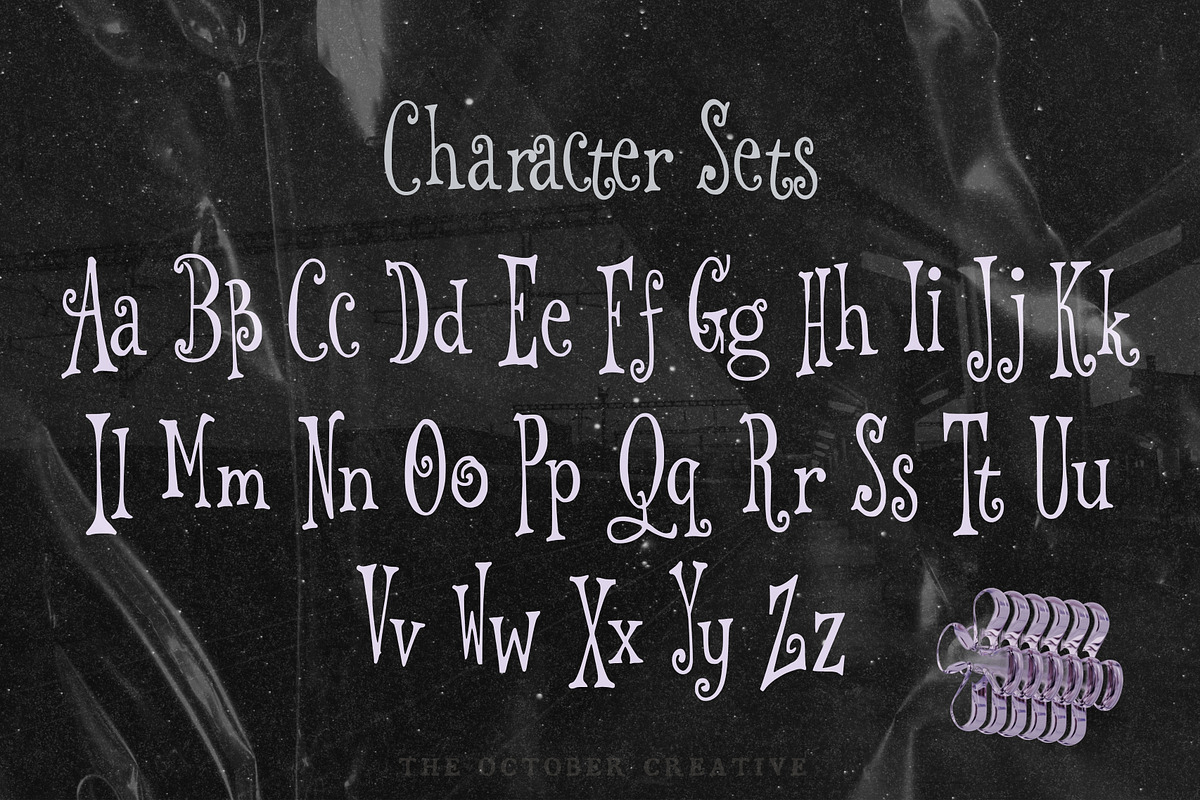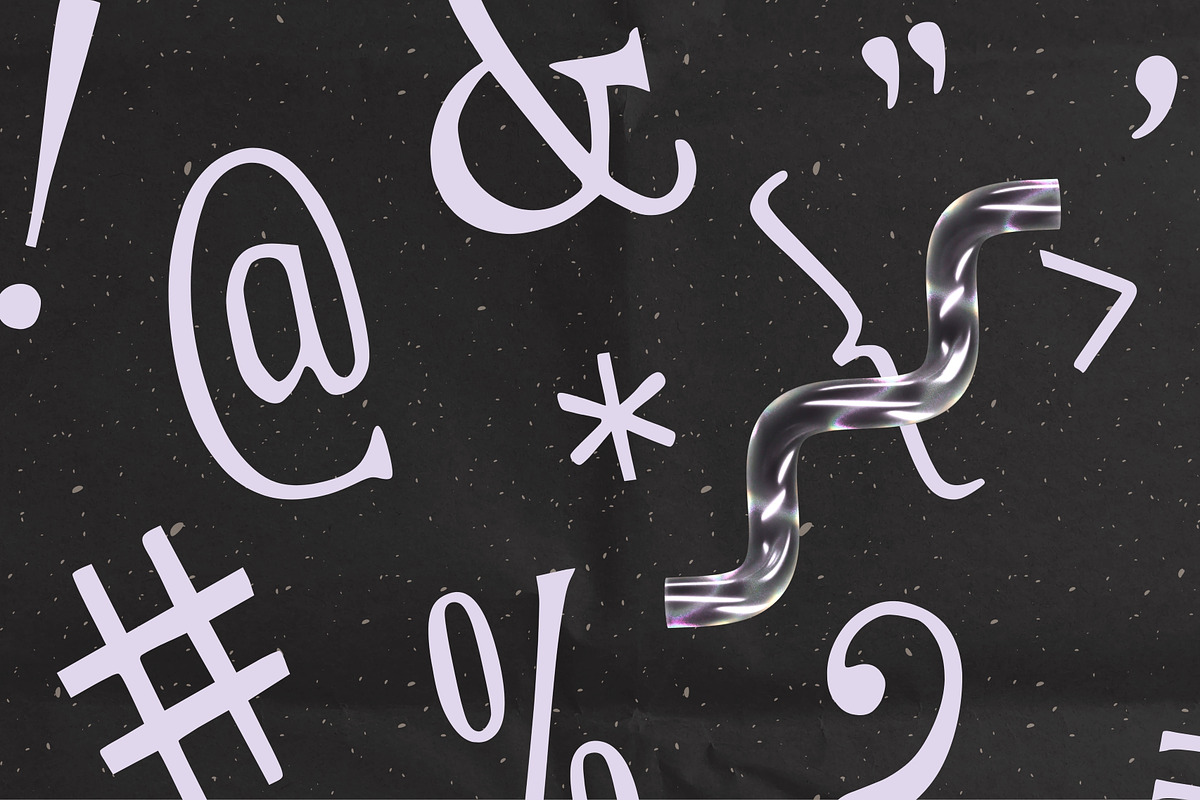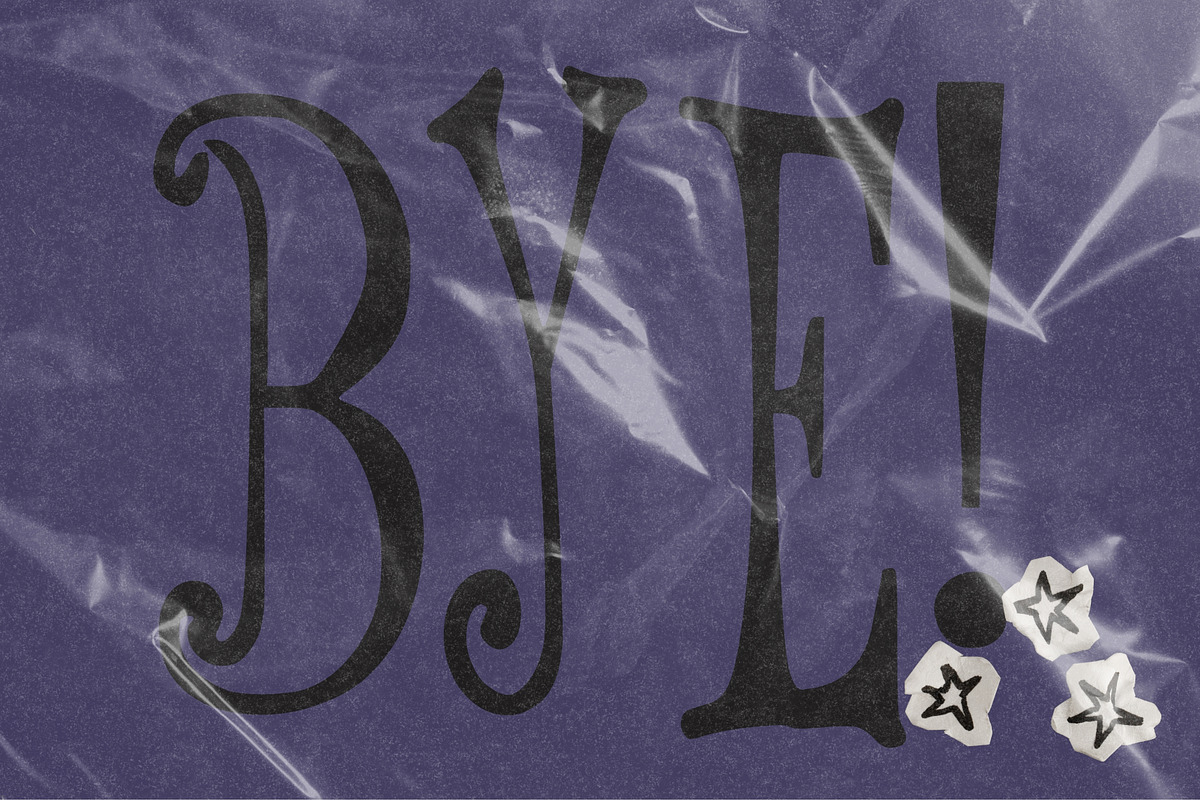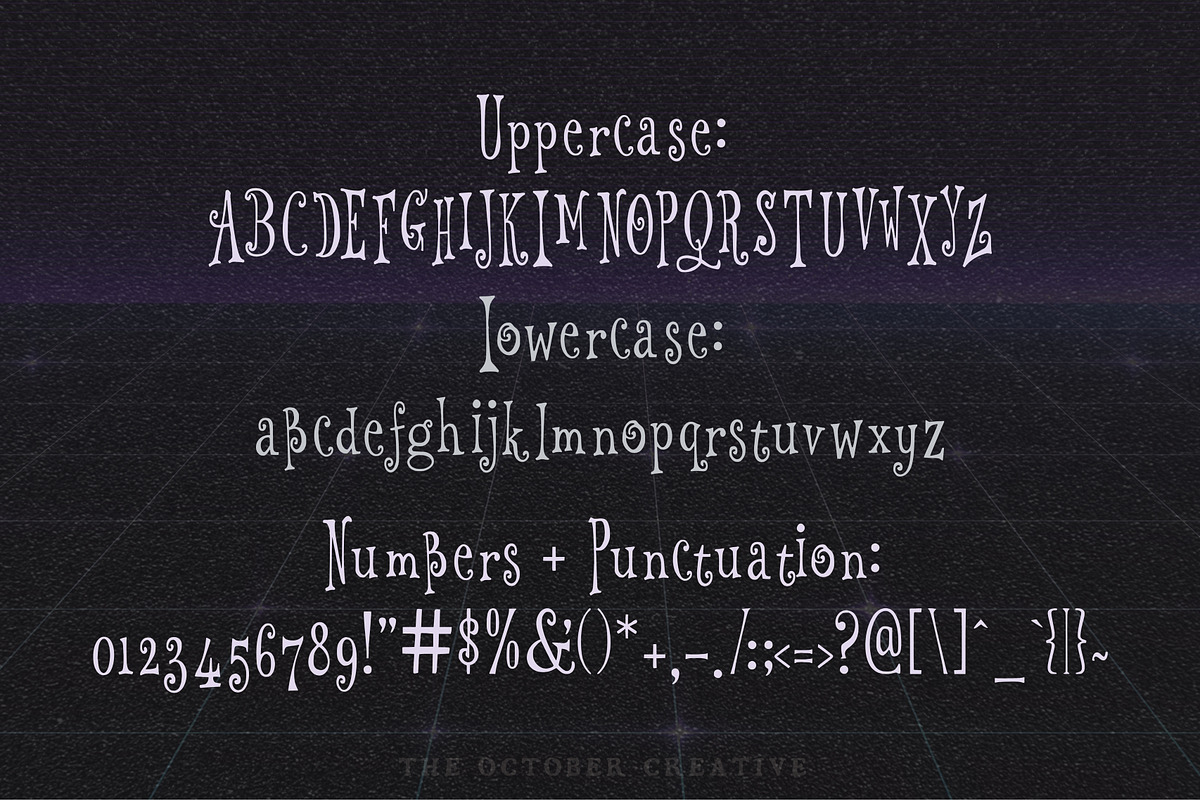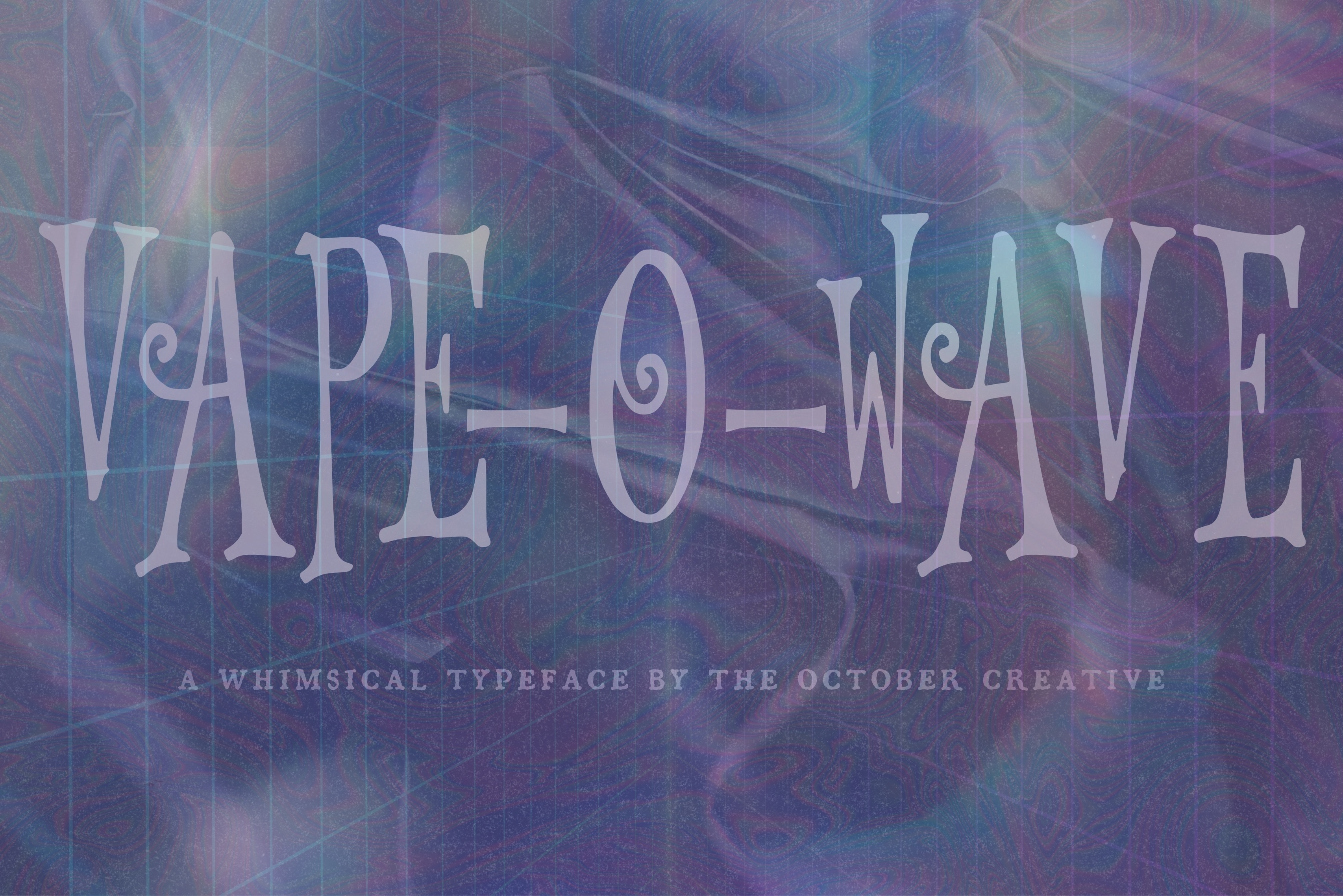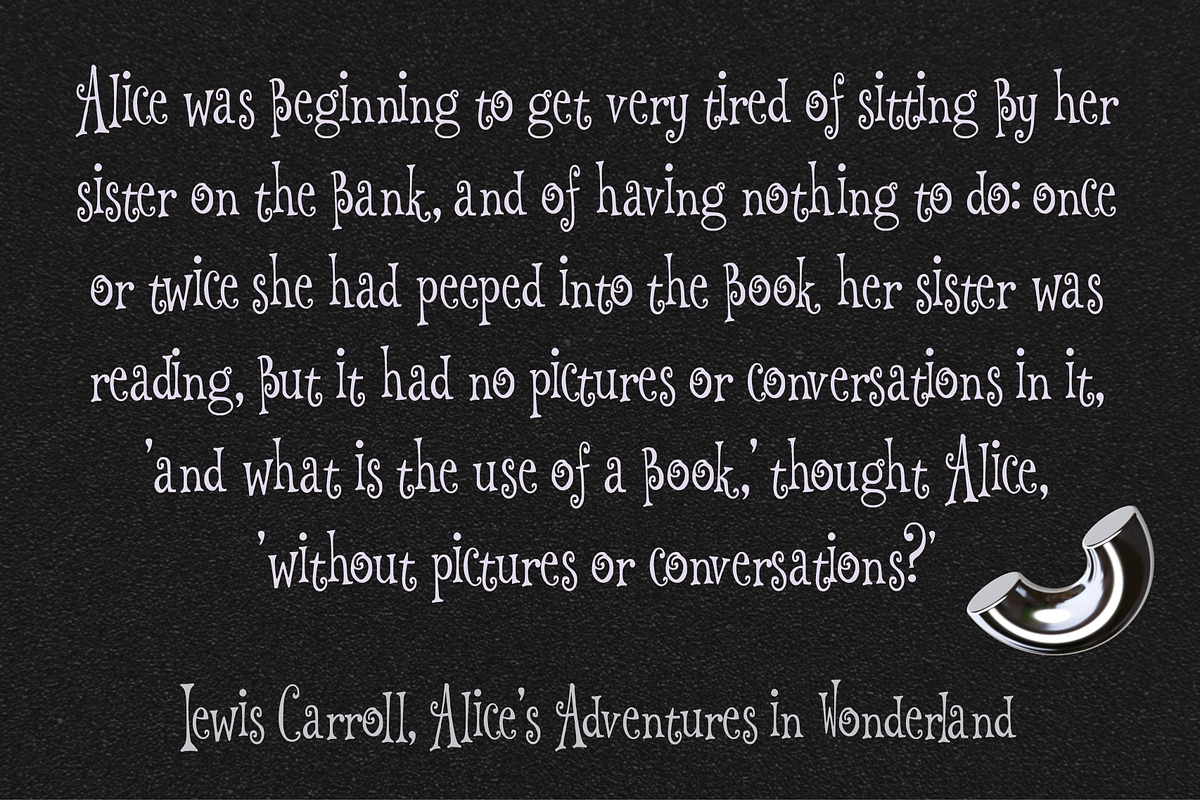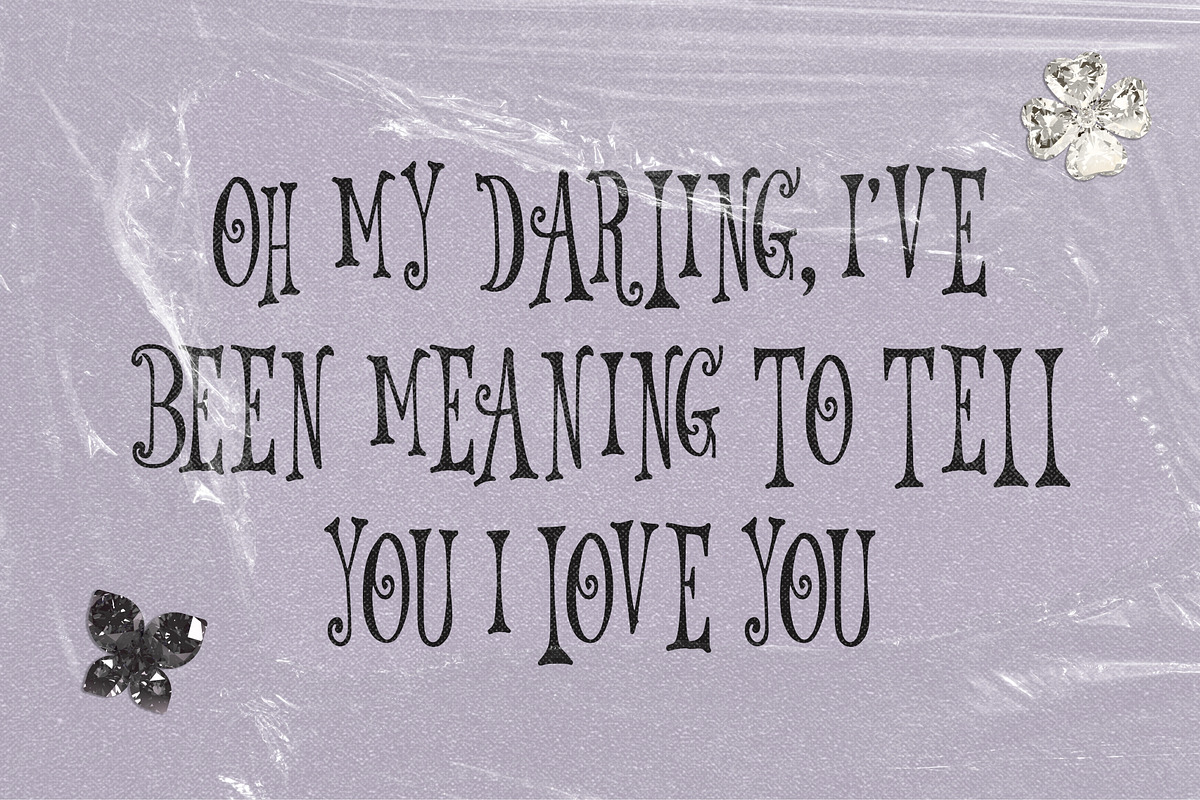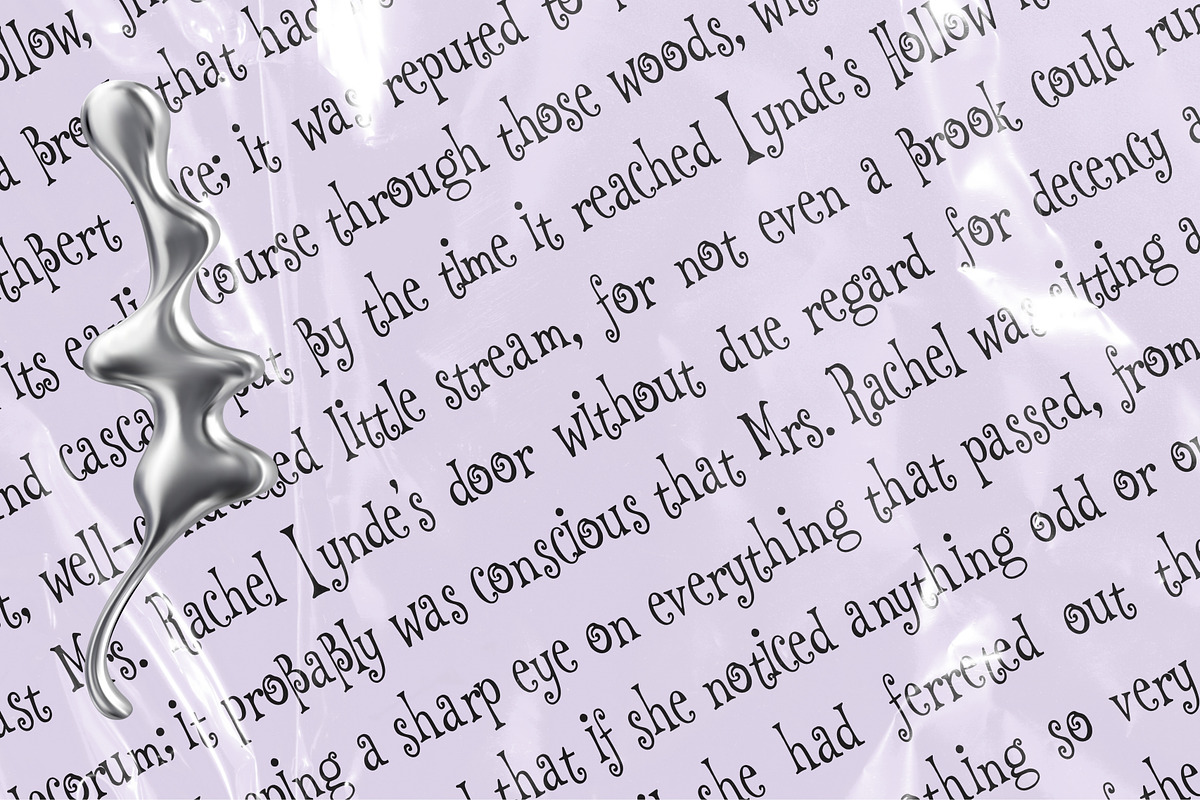
Vape-O-Wave Retro Display Font
Vape-O-Wave is a retro display font with wide round capitals and a soft slant. It fits poster prints, merch graphics, record sleeve titles, and seventies-style signage.
CHARACTER SET
Uppercase A to Z, lowercase a to z, numerals 0 to 9, and every standard keyboard punctuation mark and symbol: ! " # $ % & ' ( ) * + , - . / : ; < = > ? @ [ \ ] ^ _ ` { | } \~
Curly quotes and apostrophes (‘ ’ “ ”), en and em dashes, an ellipsis, and a bullet.
Accented letters: À Á Â Ã Ä Å Ç È É Ê Ë Ì Í Î Ï Ñ Ò Ó Ô Õ Ö Ù Ú Û Ü and their lowercase forms.
LANGUAGES SUPPORTED
English, plus the accented vowels, Ñ, and Ç used in names and everyday words in Spanish, French, Italian, Portuguese, German, and Dutch. Not included: ß, Æ, Ø, Œ, and the upside-down ¿ and ¡.
SPECIAL CHARACTERS
There are no hidden alternates or ligatures, so every character types straight from the keyboard. Accented letters type with your keyboard's usual accent shortcuts (on a Mac, hold down the letter), or you can insert them from the Glyphs panel in your design software, the Character Viewer on a Mac, or Character Map on Windows.